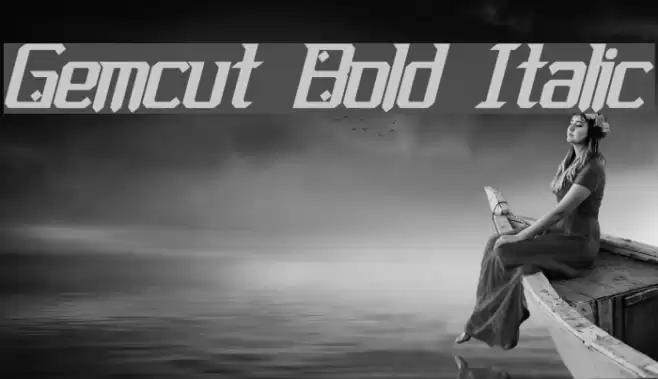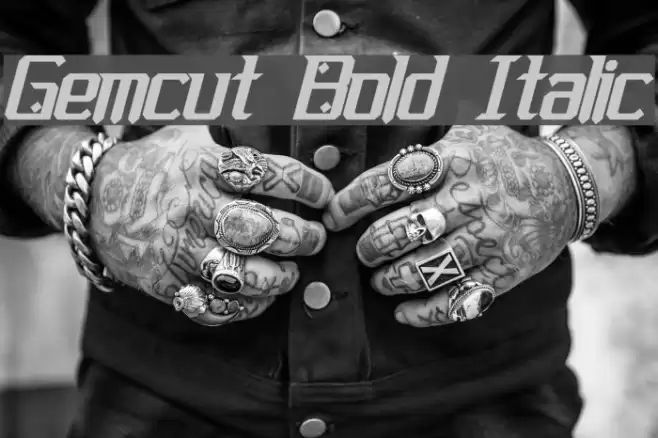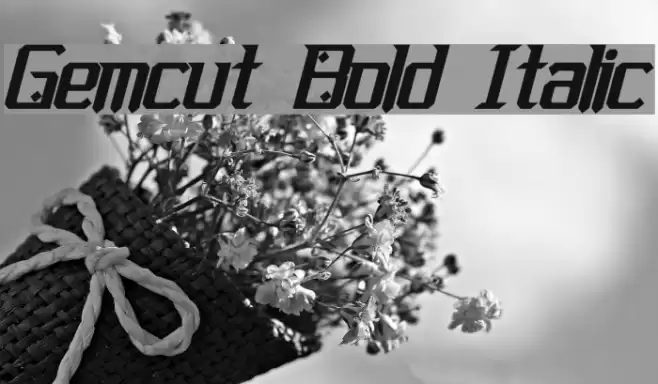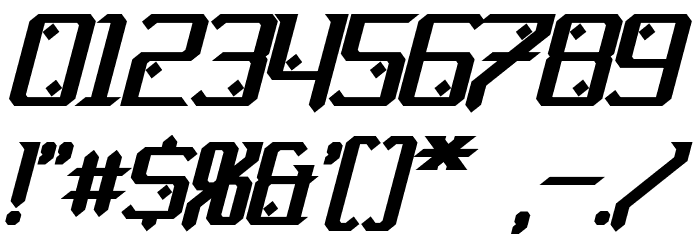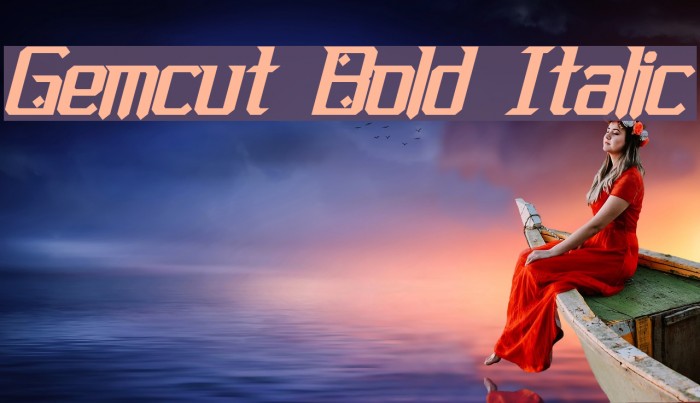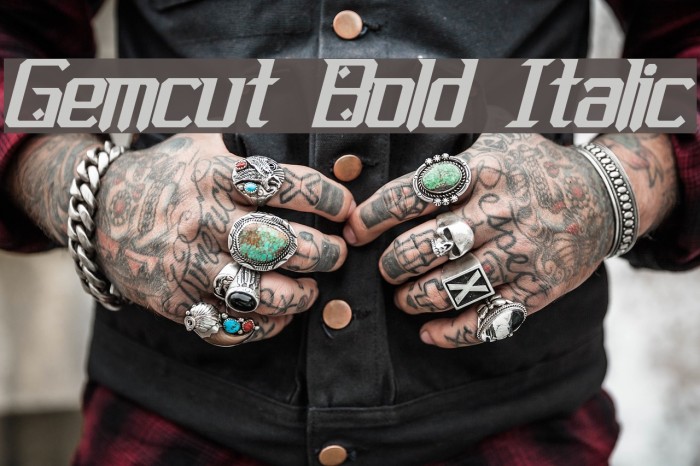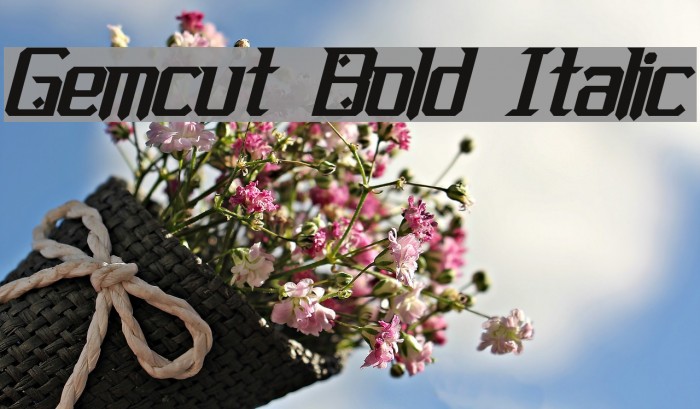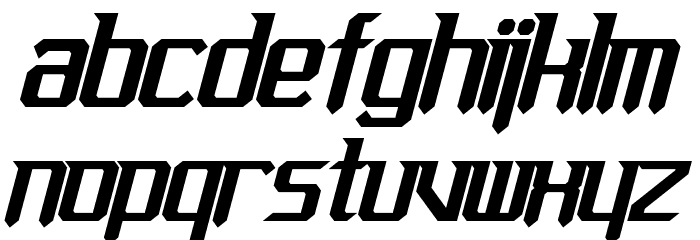
Gemcut Bold Italic Font
Gemcut Bold Italic Description
This font exhibits a bold and italicized style with a distinctive geometric and angular design. Each character is crafted with sharp edges and facets, reminiscent of cut gemstones, giving it a unique and striking appearance. The uppercase and lowercase letters maintain a consistent angular theme, while the numbers and special characters follow suit, ensuring uniformity across the typeface. The font's boldness is evident in its thick strokes, which are complemented by the italic slant, adding a dynamic and forward-moving feel. The overall design is modern and decorative, making it suitable for projects that require a standout and contemporary look.
A bold, italicized font with geometric, angular design elements from Uncategorized fonts.
- Proposed Projects: Ideal for branding, logos, posters, and any design project that requires a modern and eye-catching typeface.
- Overall Style: Modern, Decorative